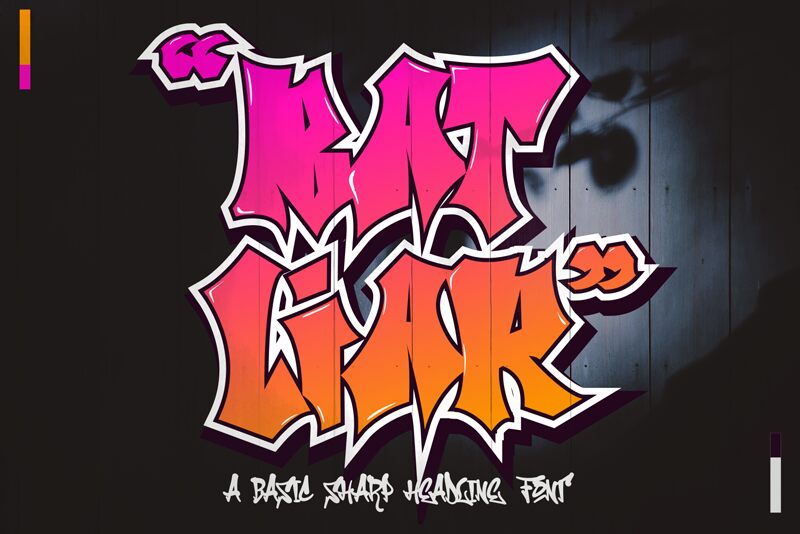
Bat Liar, a bold and captivating graffiti-inspired font crafted by Cikareotype Studio, exudes an urban, rebellious energy. This typeface's sharp, angular letterforms and dynamic strokes evoke a sense of gritty, raw expression, inviting viewers to immerse themselves in its unapologetic aesthetic. With its strong presence and commanding presence, Bat Liar commands attention, making it an ideal choice for projects seeking to convey a bold, defiant tone.
The versatility of Bat Liar extends beyond its striking visual appeal. Its bold, legible design lends itself to a range of applications, from eye-catching headlines and impactful branding to gripping editorial content and dynamic packaging designs. Whether used to make a powerful statement or to add a touch of edgy flair, Bat Liar offers a unique and memorable typographic solution for those seeking to make a lasting impression.